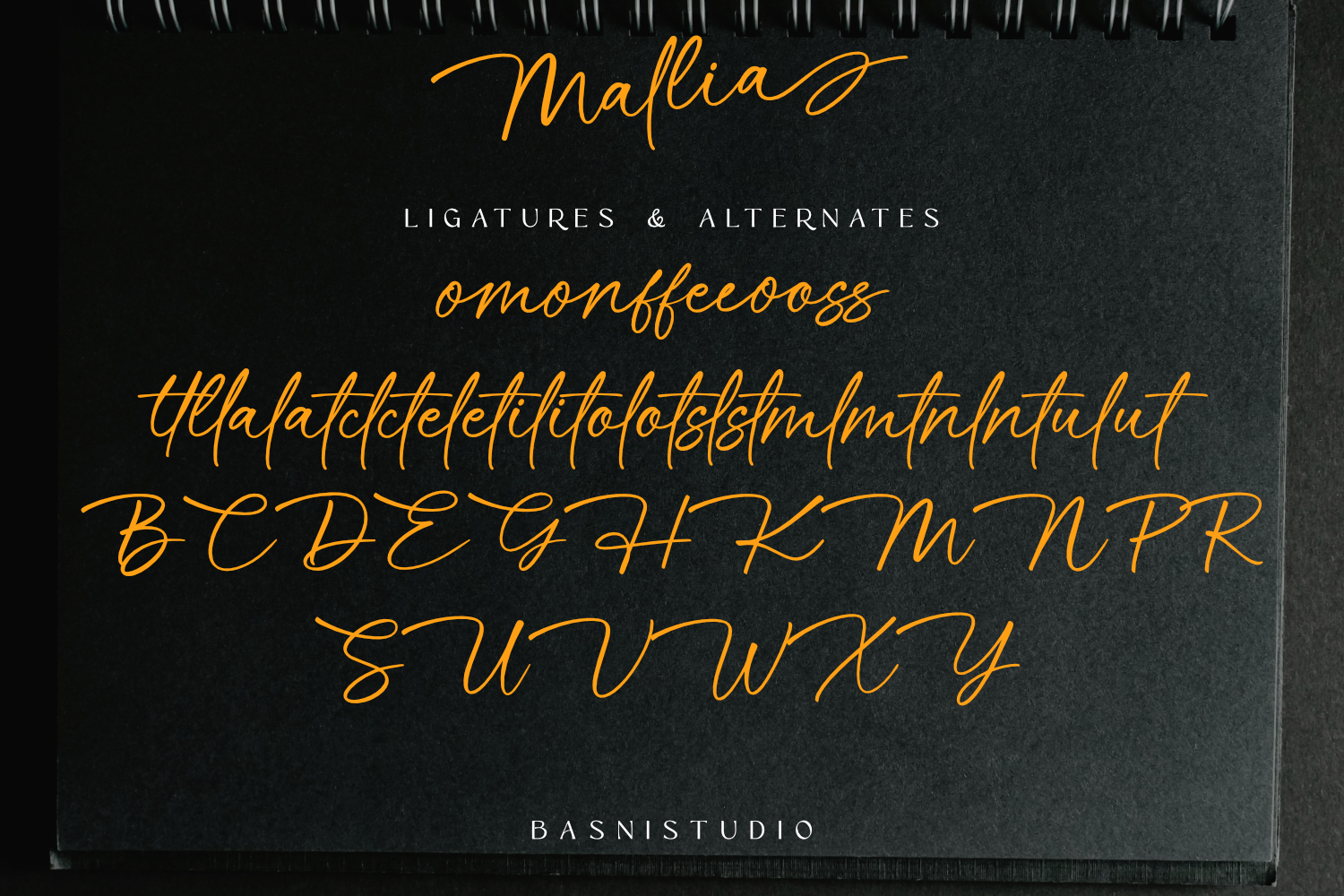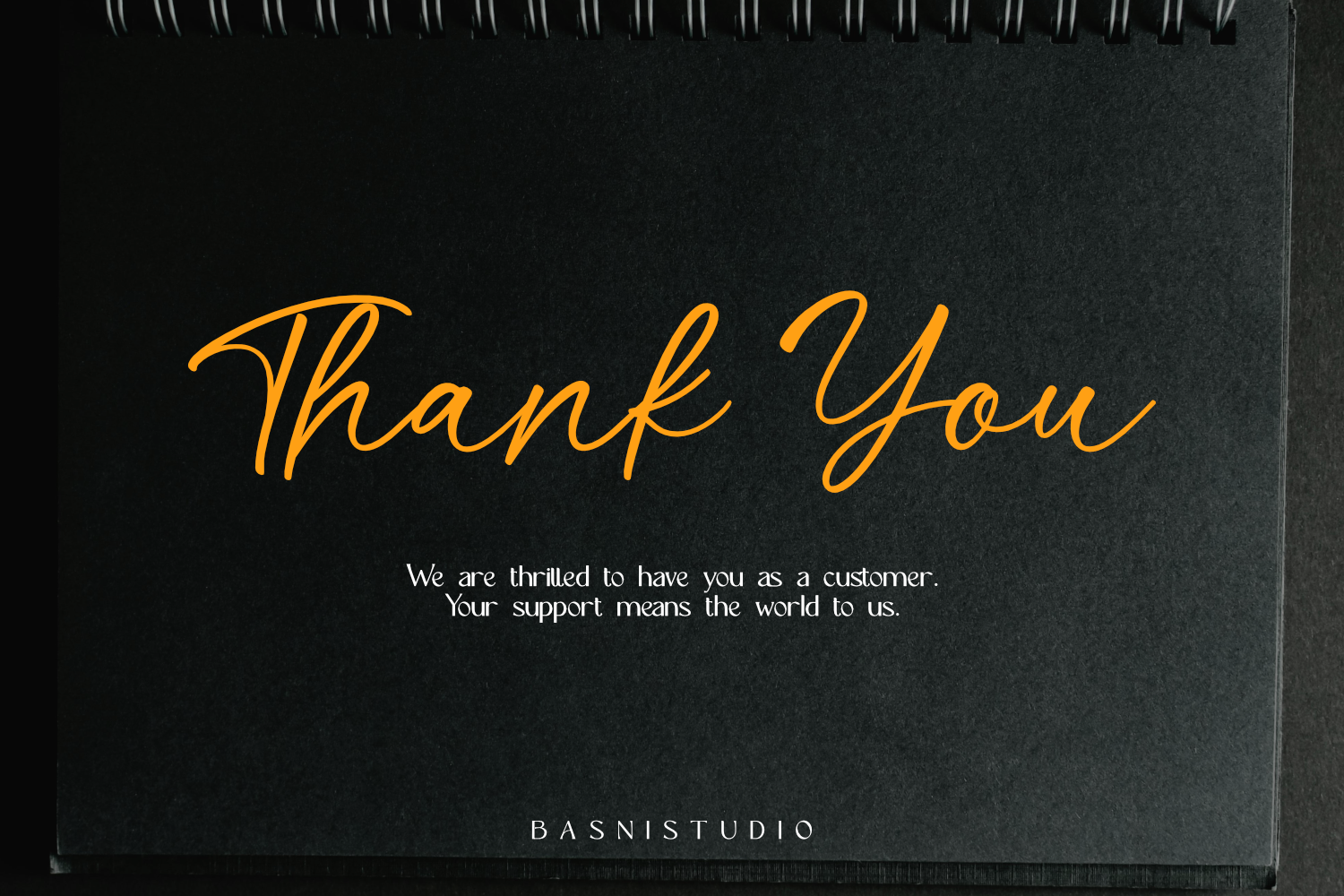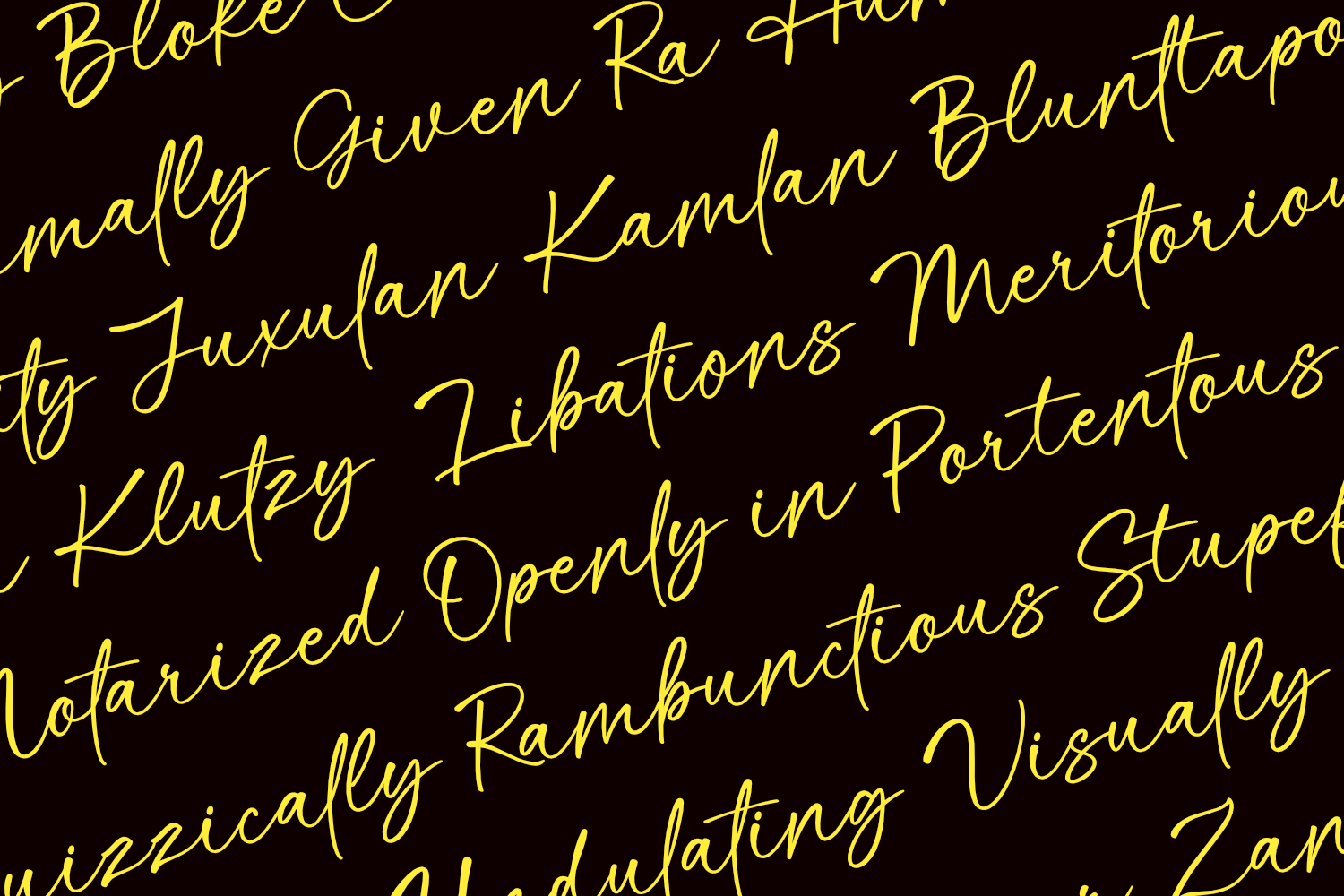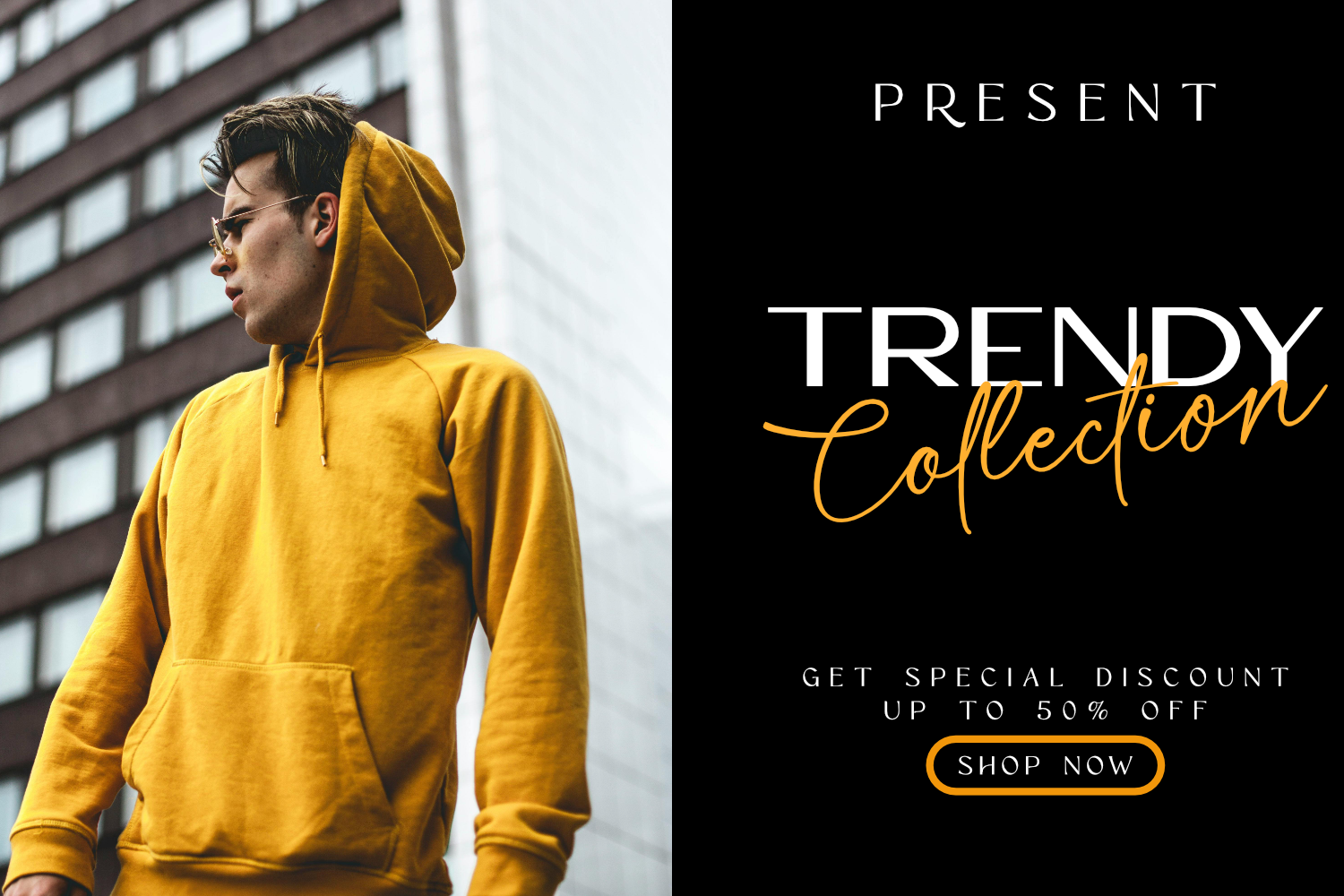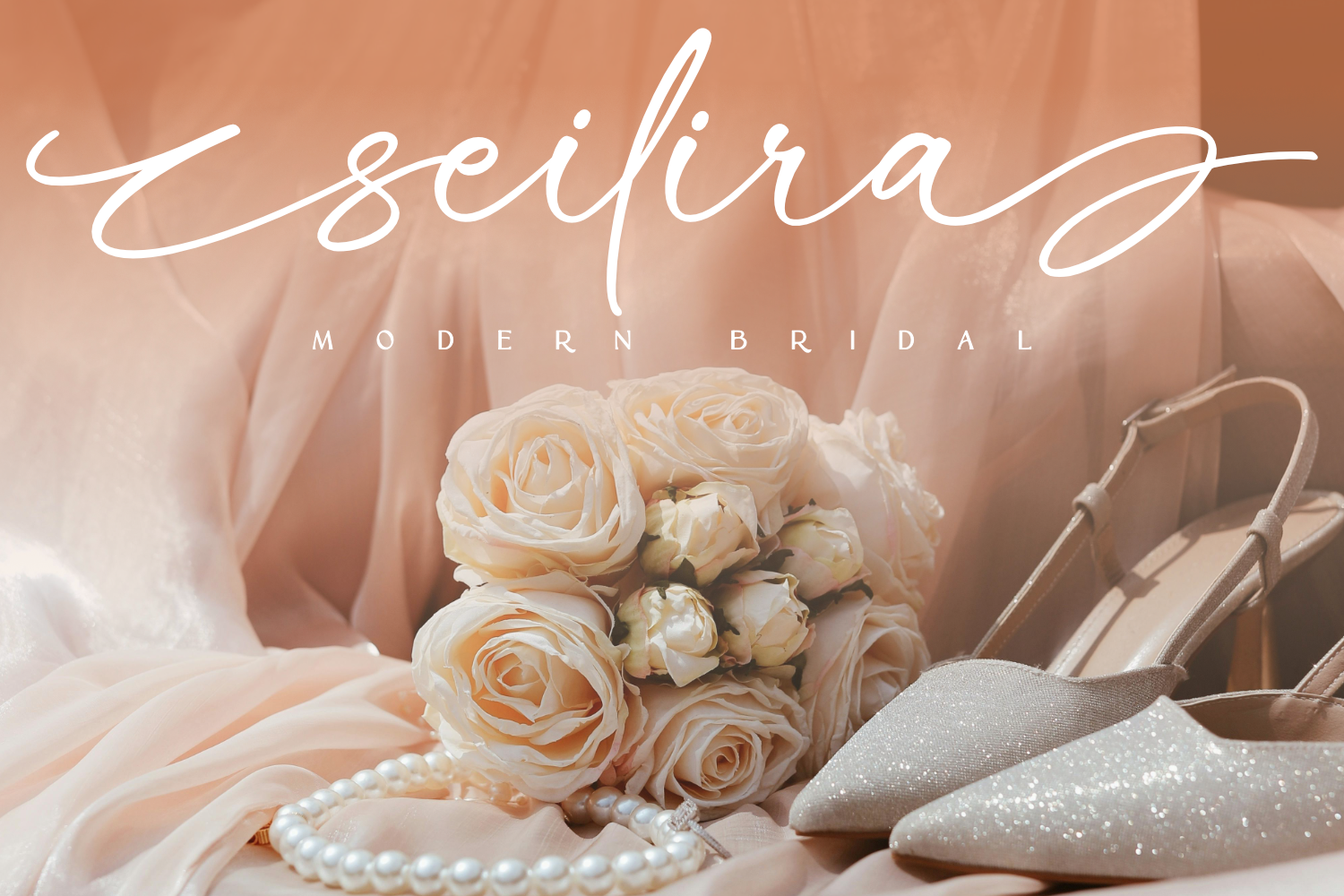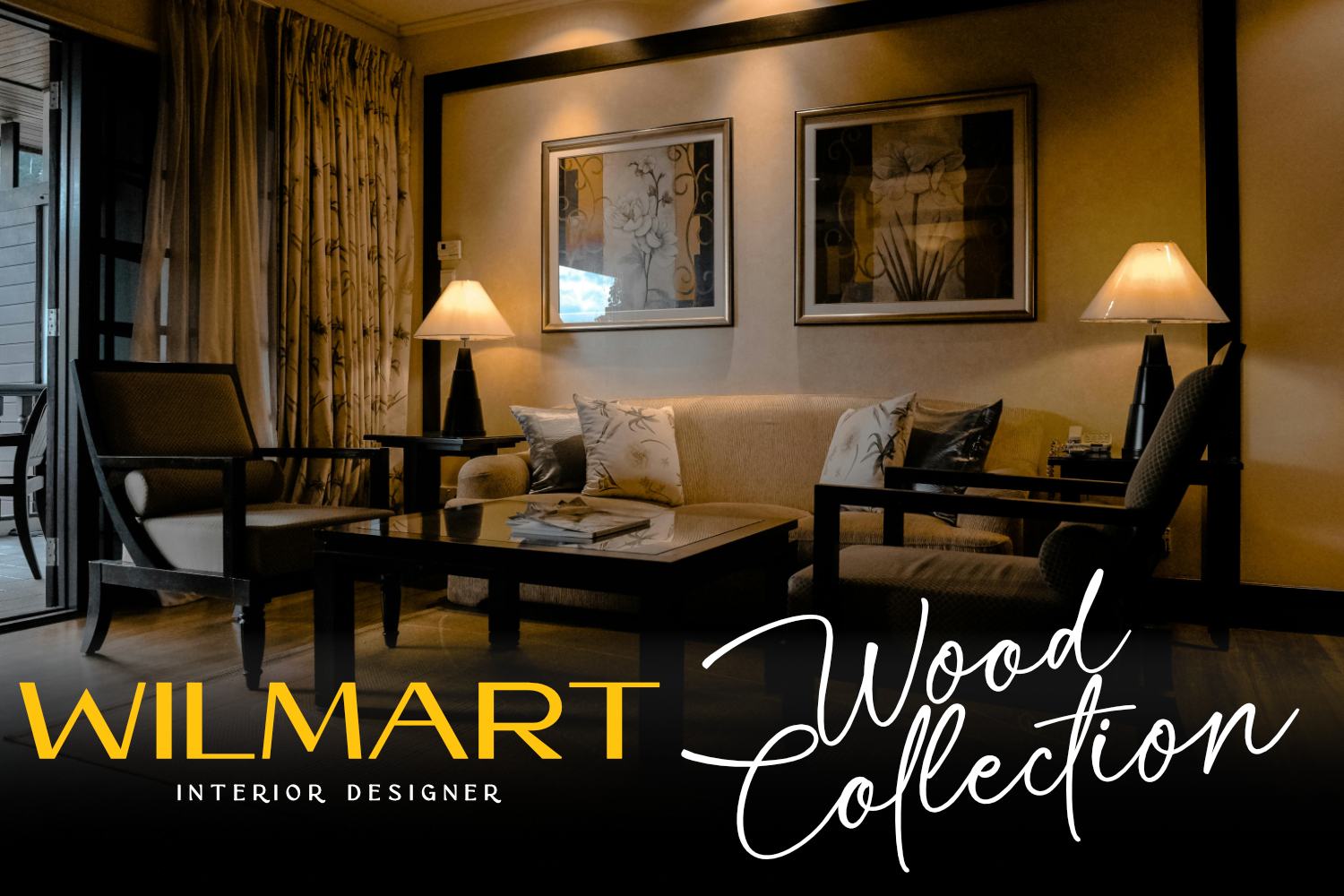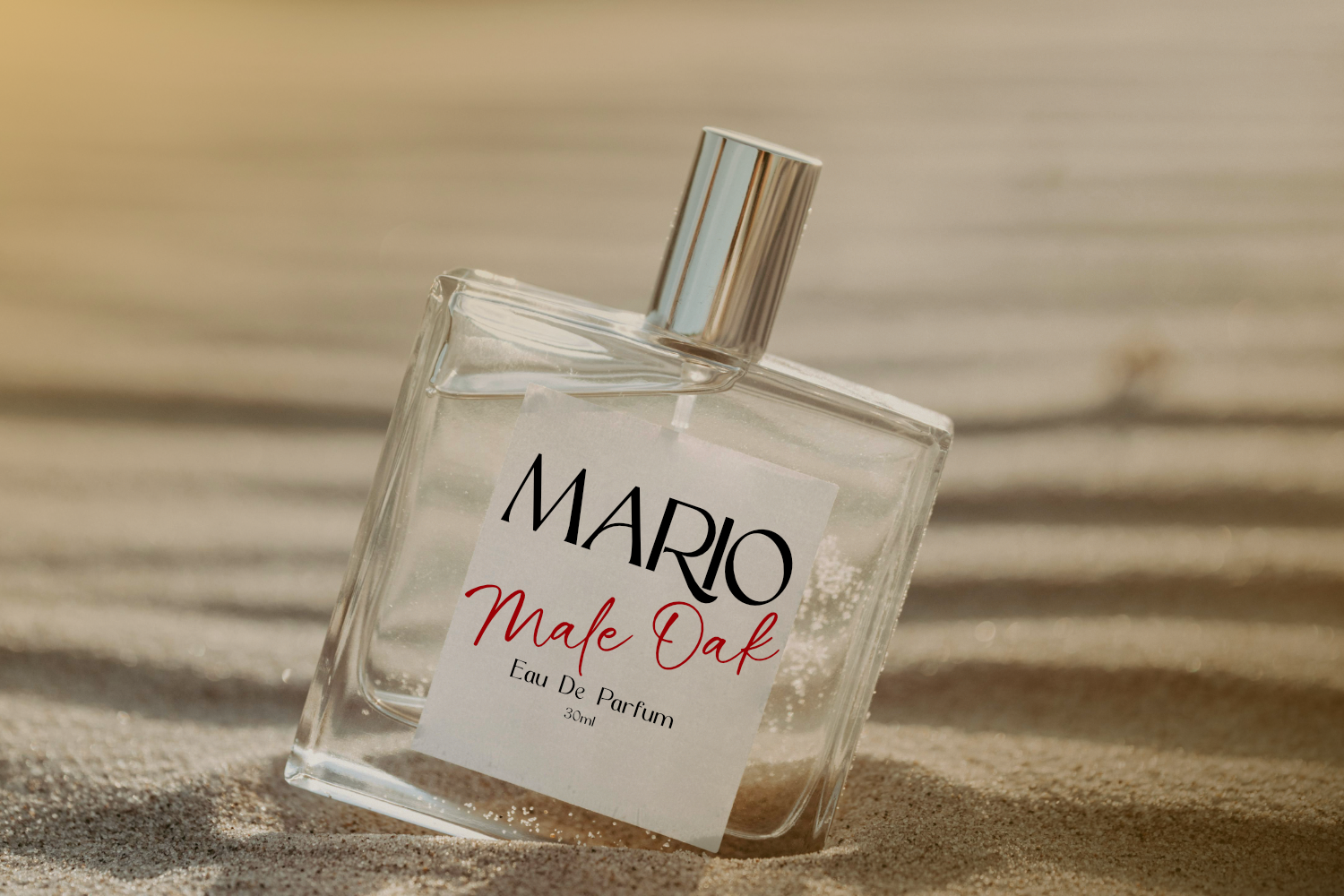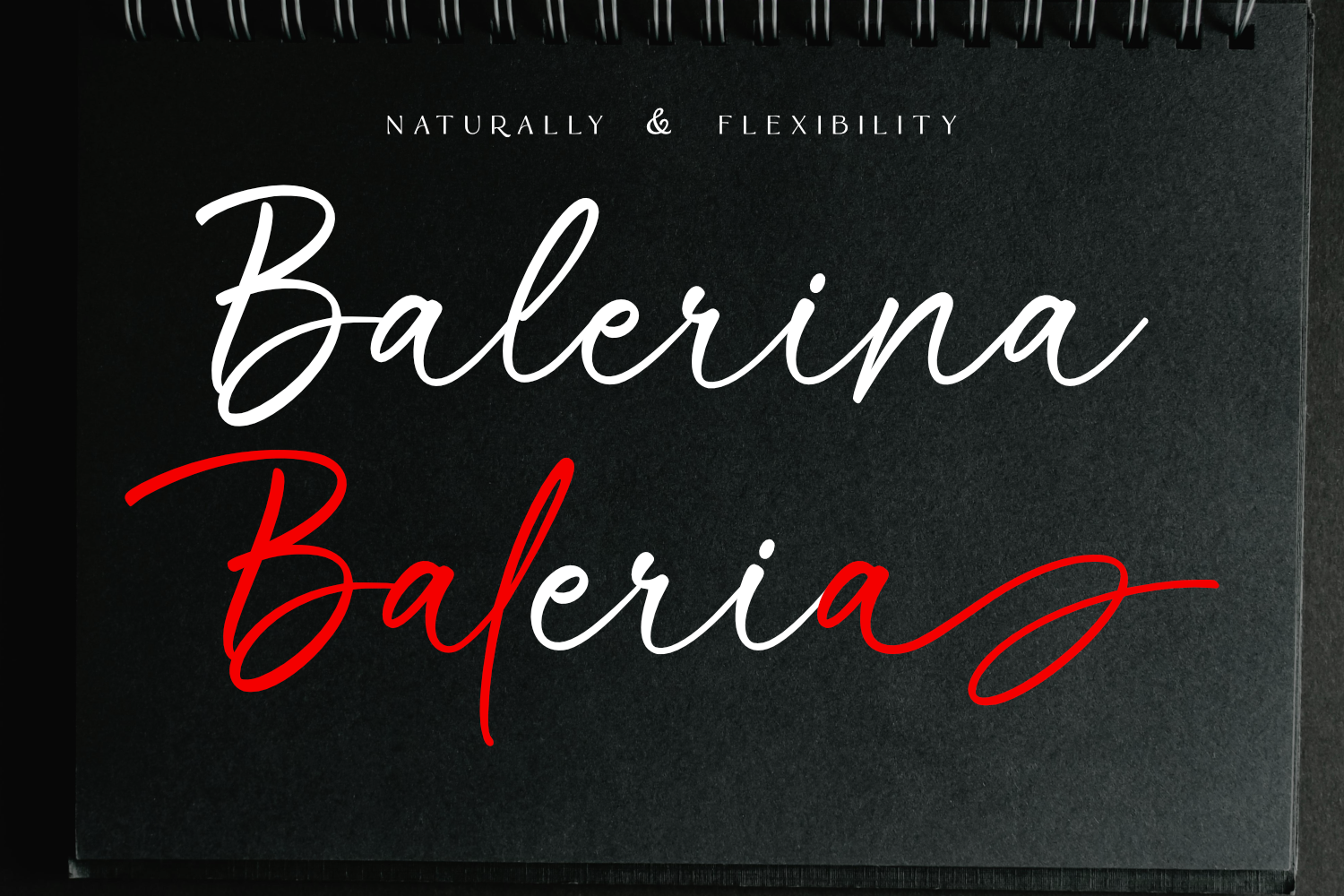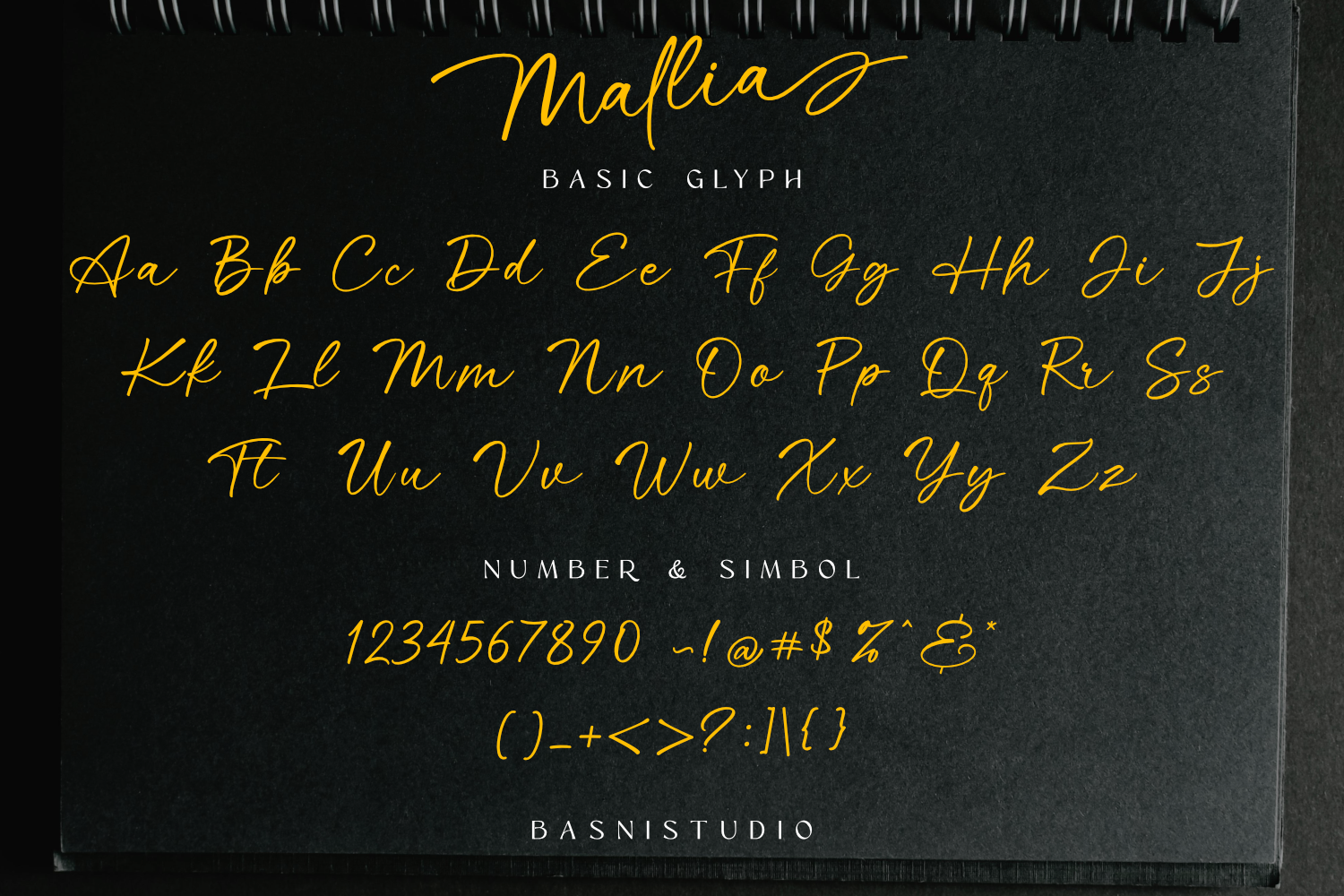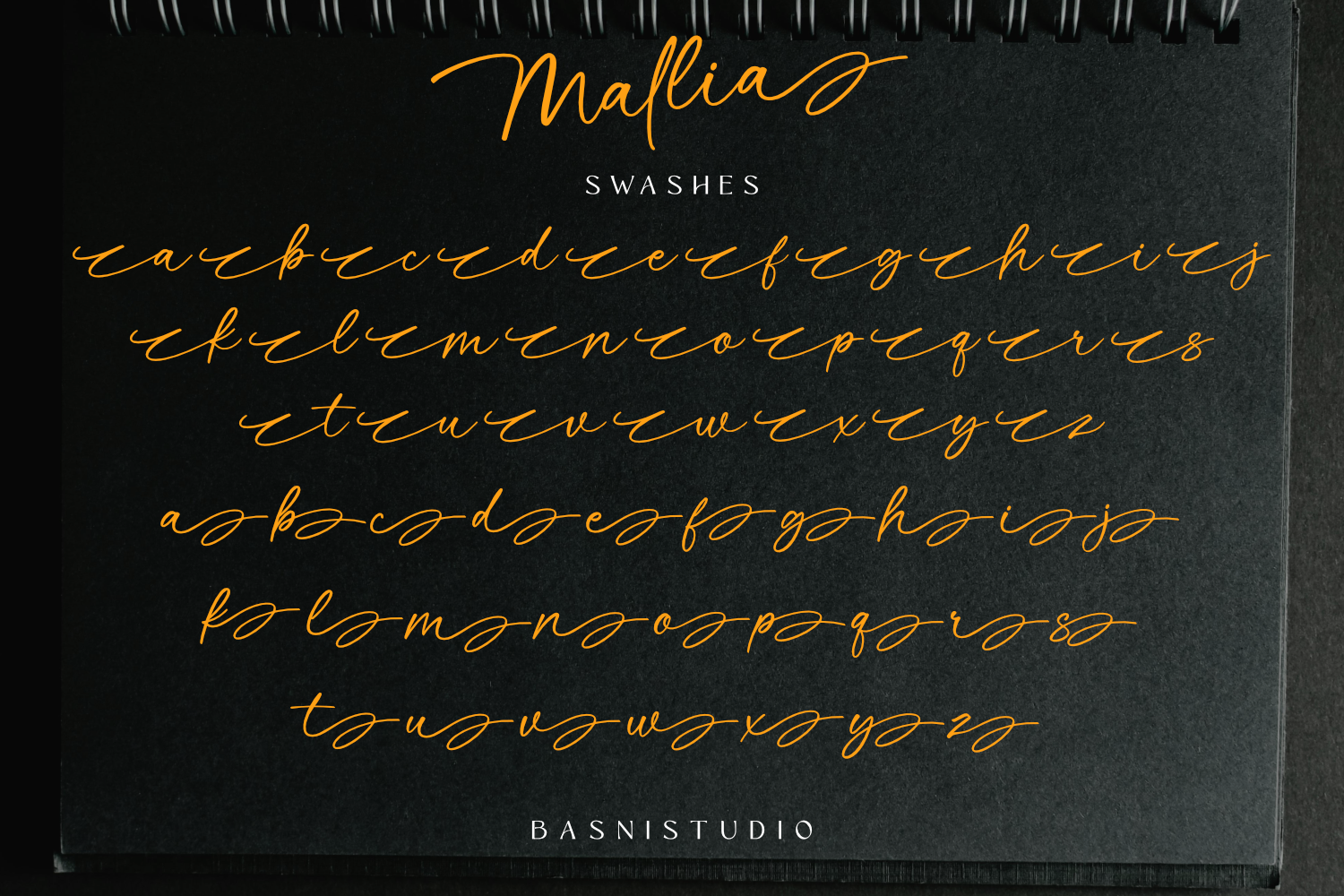
Mallia Handwritten Font
Font for Wedding & Beauty Branding
Introducing Mallia, a Flawless handwritten font
crafted with authentic Brush for Natural & Casual touch for Wedding & Beauty Branding also social media to invitations and packaging.
Elegant & Casual – Perfect for tagline, quotes, greeting cards, and more
Authentic Handwritten Feel – Created with authentic Brush for Natural & Casual
Whether you’re building a powerful brand identity or crafting a standout design,
Mallia a Handwritting Font Created with authentic Brush for Natural & Casual look gives you the creative edge you need.
What’s Included:
• Uppercase & lowercase letters
• Ligature & Alternates
• Swashes
• Numbers & punctuation
• Multilingual Support ( Support for 90 languages )